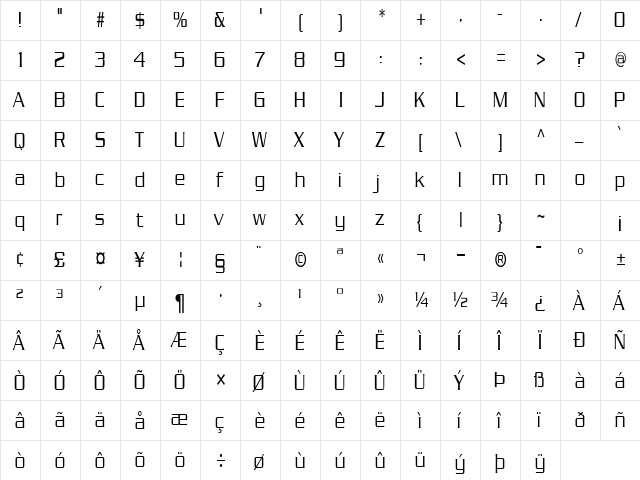
ChainlinkCondensed Regular
Design Context for ChainlinkCondensed Typeface
ChainlinkCondensed takes a measured approach to typography — its balanced proportions and neutral character make it a reliable workhorse for both digital and print work. The condensed width makes it efficient for tight spaces without sacrificing legibility.